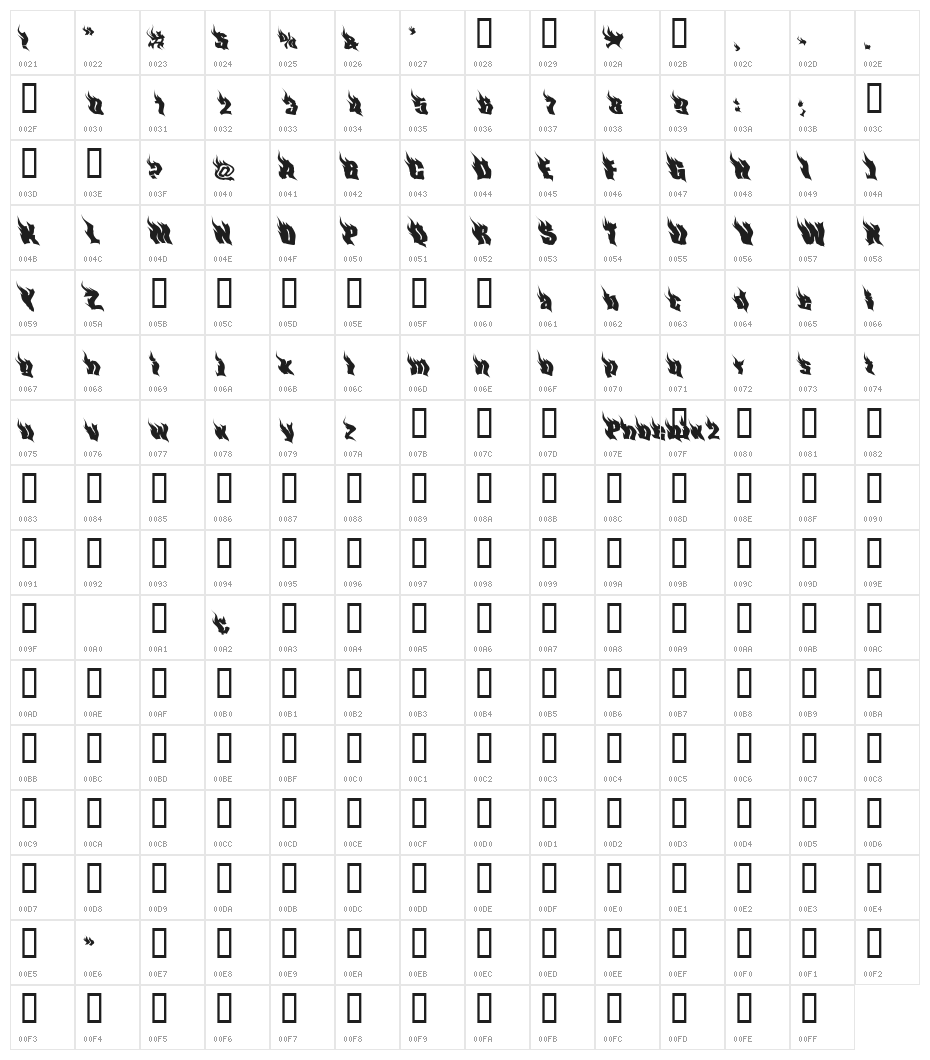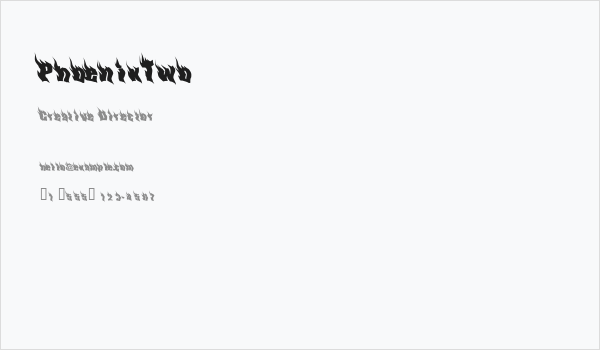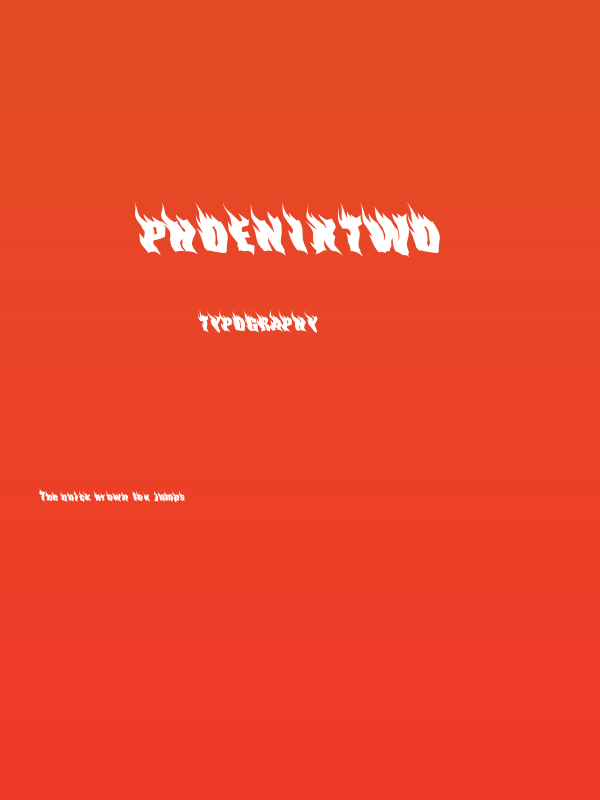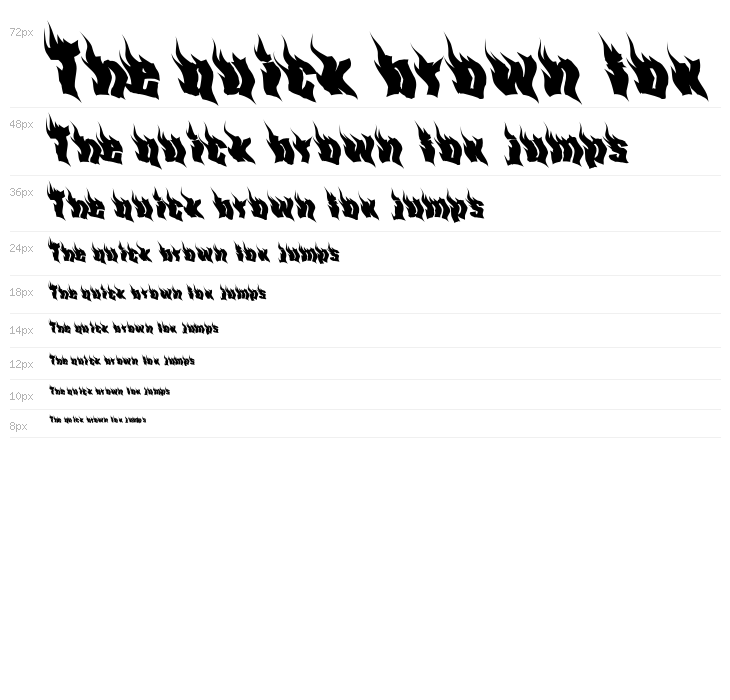
PhoenixTwo Font
PhoenixTwo Description
This font features a bold and dynamic design with flame-like extensions that give it a fiery and energetic appearance. The characters are heavily stylized, with sharp edges and dramatic curves that create a sense of movement and intensity. The uppercase and lowercase letters maintain a consistent style, while the numbers and special characters integrate seamlessly with the overall theme. This font is highly decorative and is designed to capture attention with its unique and aggressive aesthetic.
| Use Case | Logos, Headlines, Posters |
| Proposed Projects | Ideal for projects that require a striking and energetic visual impact, such as music album covers, event posters, or branding for extreme sports. |